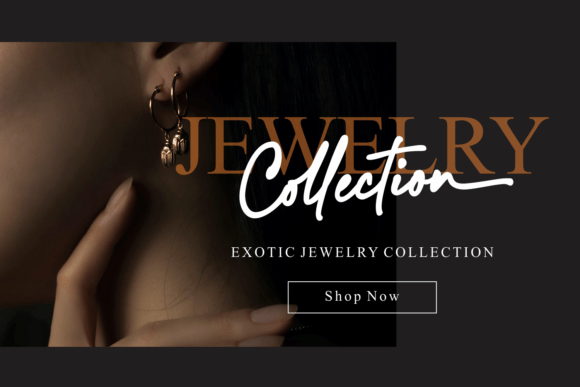
Australian Signature is a natural and classy handwritten signature font that was carefully crafted to enhance a variety of projects. This font can be used to write titles, invitations, letters, and many other types of products.
Australian Signature is PUA encoded which means you can access all of the glyphs and swashes with ease!
Australian Signature Font